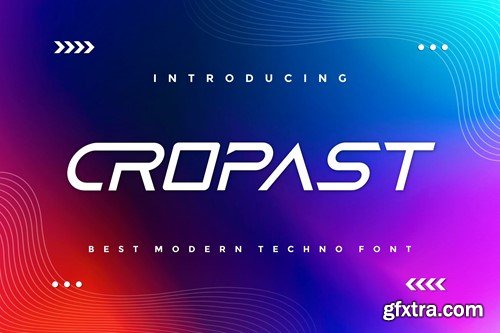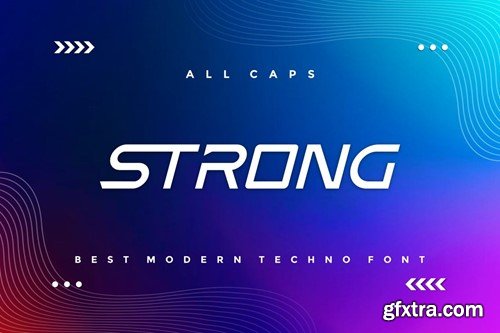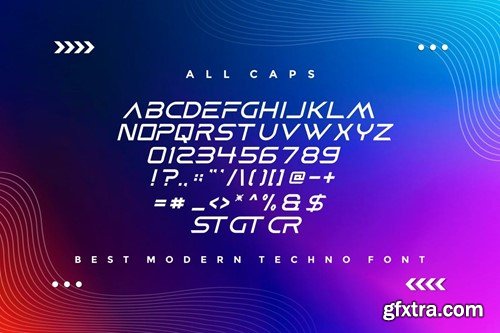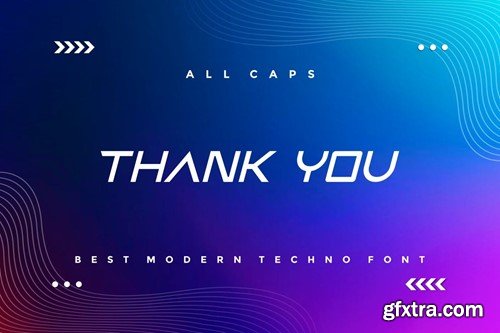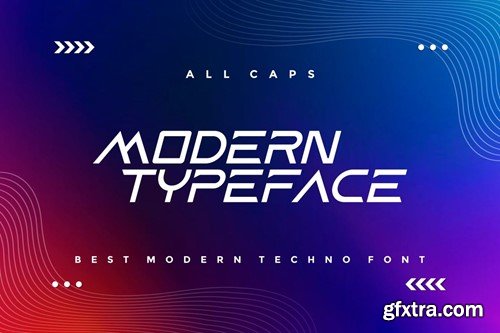
Cropast - 现代Techno字体 7ZYJ6W3
Cropast - Modern Techno Font
Introducing our new product Cropast - Modern Font Cropast is a bold, modern display font with playful flair, ideal for attention-grabbing headlines, logos, and diverse design projects. Versatile and readable in both digital and print, Cropast adds a dynamic touch to your message. availlable